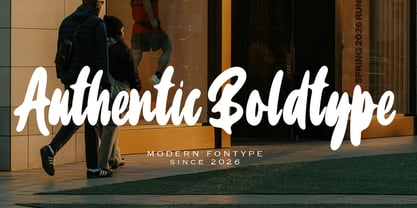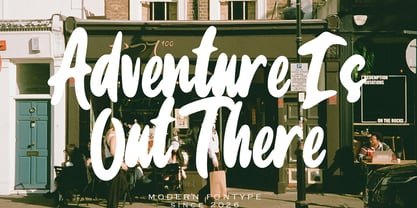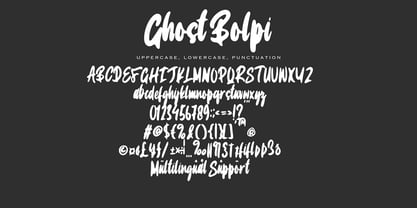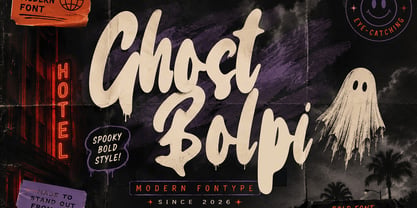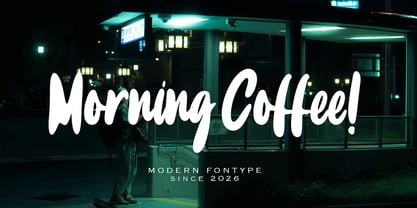
Ghost Bolpi
The Ghost Bolpi Font Family was designed by Beni Saswita and published by Pineungtype misinklab. Ghost Bolpi contains 1 styles. More about this family
Ghost Bolpi is a spooky modern display font with a bold dripping style that brings a haunting yet playful personality to your designs. Inspired by horror aesthetics, vintage movie posters, and urban street visuals, this typeface combines thick brush-like strokes with dripping details to create a strong and unforgettable presence.
Perfect for Halloween-themed projects, horror posters, branding, apparel, album covers, merchandise, packaging, social media graphics, gaming titles, and eye-catching headlines, Ghost Bolpi instantly adds mystery and dramatic energy to any composition. The handcrafted texture and expressive curves make it feel raw, stylish, and visually impactful while staying versatile for both dark and creative modern concepts.
Whether you're designing something creepy, edgy, or simply bold and unforgettable, Ghost Bolpi is made to stand out from the shadows and leave a lasting impression.